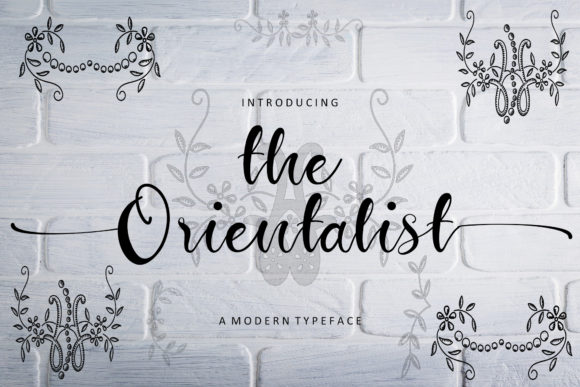
Welcome to a world where calligraphy and charm intertwine, introducing The Orientalist Font: a romantic, sweet, and utterly captivating script family brought to life by Coretanletter. This isn't just a font; it's an enchanting journey through the realm of creative expression.
The Orientalist is a dance of characters, a symphony of strokes that will infuse your designs with a touch of elegance and allure. Its casual, yet refined nature makes it a versatile chameleon, capable of transforming any project into a masterpiece.
Imagine your wedding invitations adorned with The Orientalist's graceful curves, whispering promises of love and joy. The harmonious strokes will dance across the page, beckoning your guests to witness a union of hearts.
Or perhaps you seek to create a logo that exudes timeless sophistication. The Orientalist's delicate lines will intertwine, forming a visual symphony that captures the essence of your brand. Its charm will draw customers like moths to a flame, leaving an indelible mark on their minds.
Headings and t-shirts will come alive with The Orientalist's magnetic presence. Its playful spirit will add a touch of whimsy to your designs, inviting readers and wearers alike to embark on a whimsical adventure.
But The Orientalist's versatility extends far beyond these realms. Its versatility knows no bounds, extending to letterheads, signage, labels, news, posters, and badges. This font is a veritable toolbox of creative possibilities, ready to elevate your designs to dizzying heights.
With The Orientalist Font, you'll discover a font that is more than just a tool; it's a companion on your creative journey, a muse that will inspire you to dream big and create designs that captivate and enchant. Get ready to unleash your imagination and embark on a journey of unparalleled beauty with The Orientalist Font.